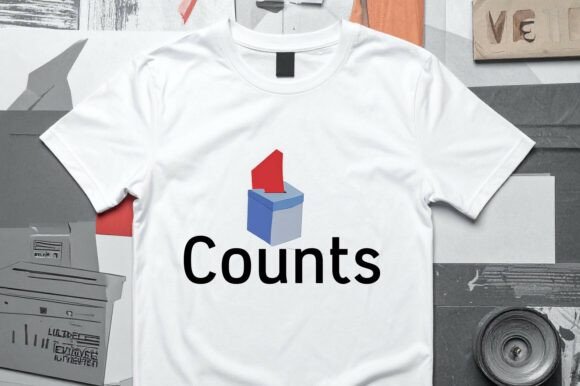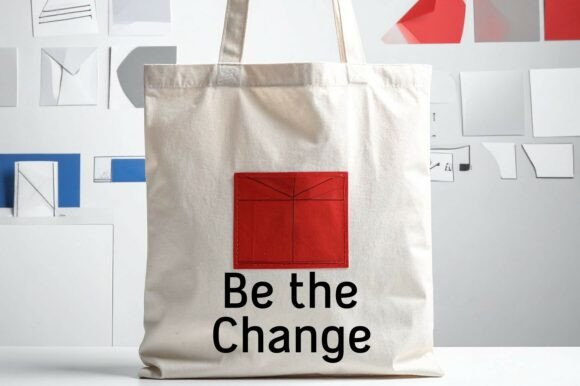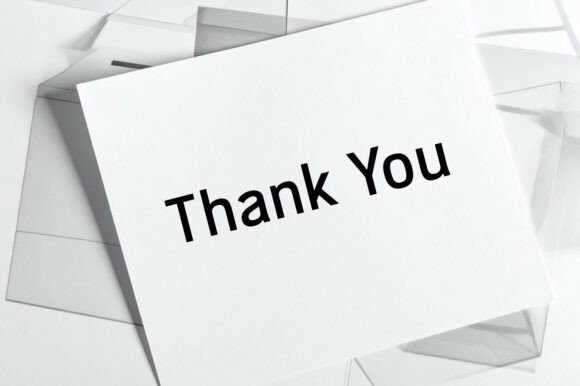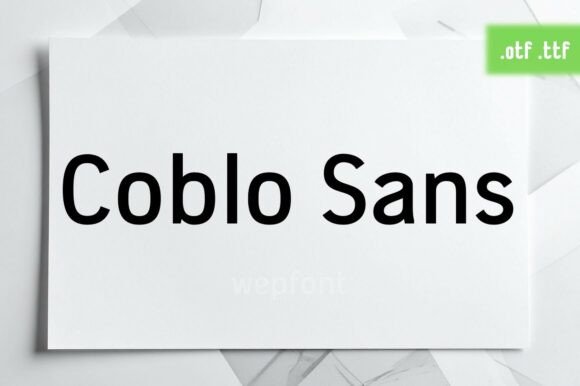
Coblo Sans Font: The Epitome of Modern Elegance and Readability
In the vast and ever-evolving world of typography, a select few fonts manage to capture the essence of modern elegance while maintaining unrivaled readability. Among these select few is the Coblo Sans font, a sans-serif typeface that masterfully marries clean, contemporary lines with harmonious symmetry. This exquisite font is engineered to make a robust impact without compromising on clarity, making it an exceptional tool for designers and crafters aiming to create compelling narratives and impeccable designs.
The Essence of Coblo Sans
Coblo Sans is more than just a font; it’s a powerful medium that echoes with assurance. Its design is centered around creating a lasting impression, making it perfect for projects that demand a high level of sophistication and professionalism. The elegant melding of gentle curves and slick angles lends a polished, acute visual aesthetic that captures and sustains attention. This ensures that your message is not merely heard, but truly absorbed by your audience.
Exceptional Legibility
One of the standout features of Coblo Sans is its flawless legibility across diverse scales and platforms. Whether you’re designing for digital media or print, this font maintains its clarity and impact, ensuring that your message is conveyed effectively regardless of the medium. The minimalist yet chic letterforms are designed to captivate and sustain attention, making Coblo Sans an excellent choice for a wide range of applications, from corporate branding to digital content creation.
Versatility and Strength
Coblo Sans weaves versatility into strength, making it a demanding yet approachable font. Its design strikes a perfect balance between being assertive and remaining friendly, which morphs it into an exceptional communication tool. This versatility is crucial for designers who need a font that can adapt to different contexts and still maintain its visual appeal and effectiveness.
Comprehensive Kit
The Coblo Sans font kit is comprehensive, encompassing aesthetically balanced upper and lower case letters, numerals, and other essential typographic elements. This ensures that designers have everything they need to create cohesive and visually appealing designs. The inclusion of a wide range of characters also makes Coblo Sans suitable for projects that require multilingual support.
Design and Craft Applications
Coblo Sans is tailor-made for designers and crafters who are keen on producing high-quality work. Its clean lines, elegant curves, and exceptional readability make it an excellent choice for:
- Corporate branding: Create a lasting impression with a font that exudes professionalism and sophistication.
- Digital content creation: Enhance your digital presence with a font that is clear, readable, and engaging across various platforms.
- Print design: Produce stunning print materials, from brochures to business cards, with a font that maintains its elegance and impact.
- Web design: Improve user experience with a font that is optimized for digital media, ensuring clarity and readability on all devices.
Coblo Sans is a remarkable font that embodies modern elegance and unrivaled readability. Its design, characterized by clean lines, harmonious symmetry, and a blend of gentle curves and slick angles, makes it a powerful medium for creating compelling narratives and impeccable designs. With its exceptional legibility, versatility, and comprehensive kit, Coblo Sans is an invaluable tool for designers and crafters aiming to elevate their work. Whether you’re working on a corporate branding project, digital content, or print design, Coblo Sans is poised to make a significant impact, ensuring your message is conveyed with assurance and absorbed by your audience.